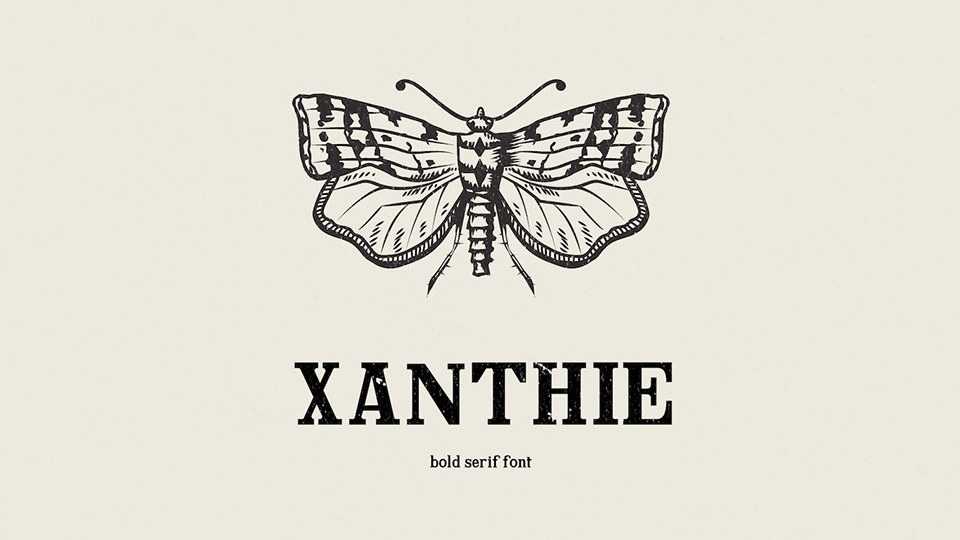
Download Xanthie font, a bold serif typeface with a nostalgic feel inspired by vintage French alphabet learning book. Xanthie font is suitable especially for designs needing big headings.